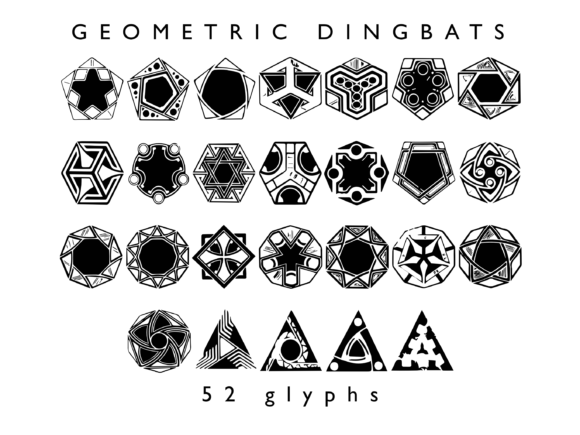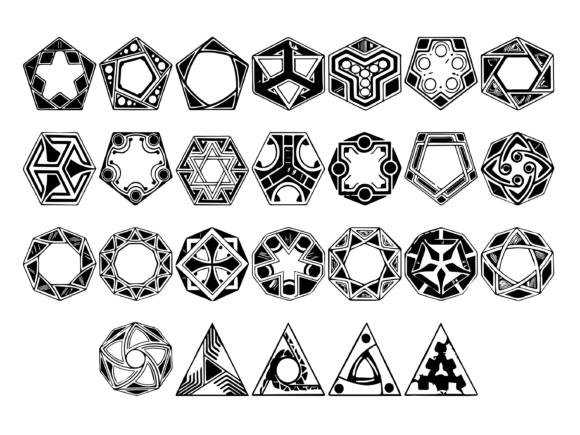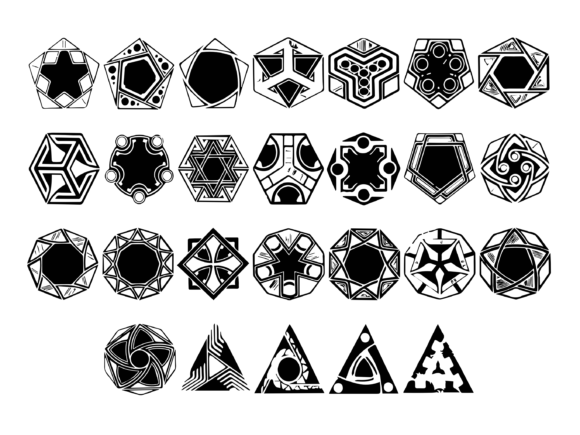
Geometric Font
About Geometric Font
Introducing Geometric, a versatile and creative dingbats font that will bring a touch of geometric beauty to your designs. This font is specifically designed to offer a wide range of geometric and decorative elements that can be used in various creative projects.
Geometric font features a collection of meticulously crafted glyphs, each representing a different geometric shape or pattern. These elements include lines, circles, triangles, squares, and other geometric forms, all designed to add a sense of structure and visual interest to your designs.
Whether you’re working on graphic design projects, creating digital artwork, crafting invitations or greeting cards, or even decorating your personal journal, Geometric font offers endless possibilities. You can use these elements as decorative accents, borders, patterns, or even standalone design elements to add a unique and modern touch to your creations.
The versatility of Geometric font allows you to experiment and explore different combinations of shapes, sizes, and orientations, giving you the freedom to create truly unique and eye-catching designs. The clean and precise nature of the geometric elements ensures that they maintain their visual appeal and clarity, even when used in complex compositions.
Geometric font is suitable for both digital and print projects, allowing you to use it in a wide range of mediums. From web graphics and social media posts to stationery, posters, and other printed materials, this font will add a touch of modernity and sophistication to your designs.
Embrace the creative potential of Geometric font and let it inspire your designs. With its collection of geometric and decorative elements, you can elevate your creative projects and make them visually captivating. Explore the endless possibilities, experiment with different combinations, and let your creativity shine with Geometric font.